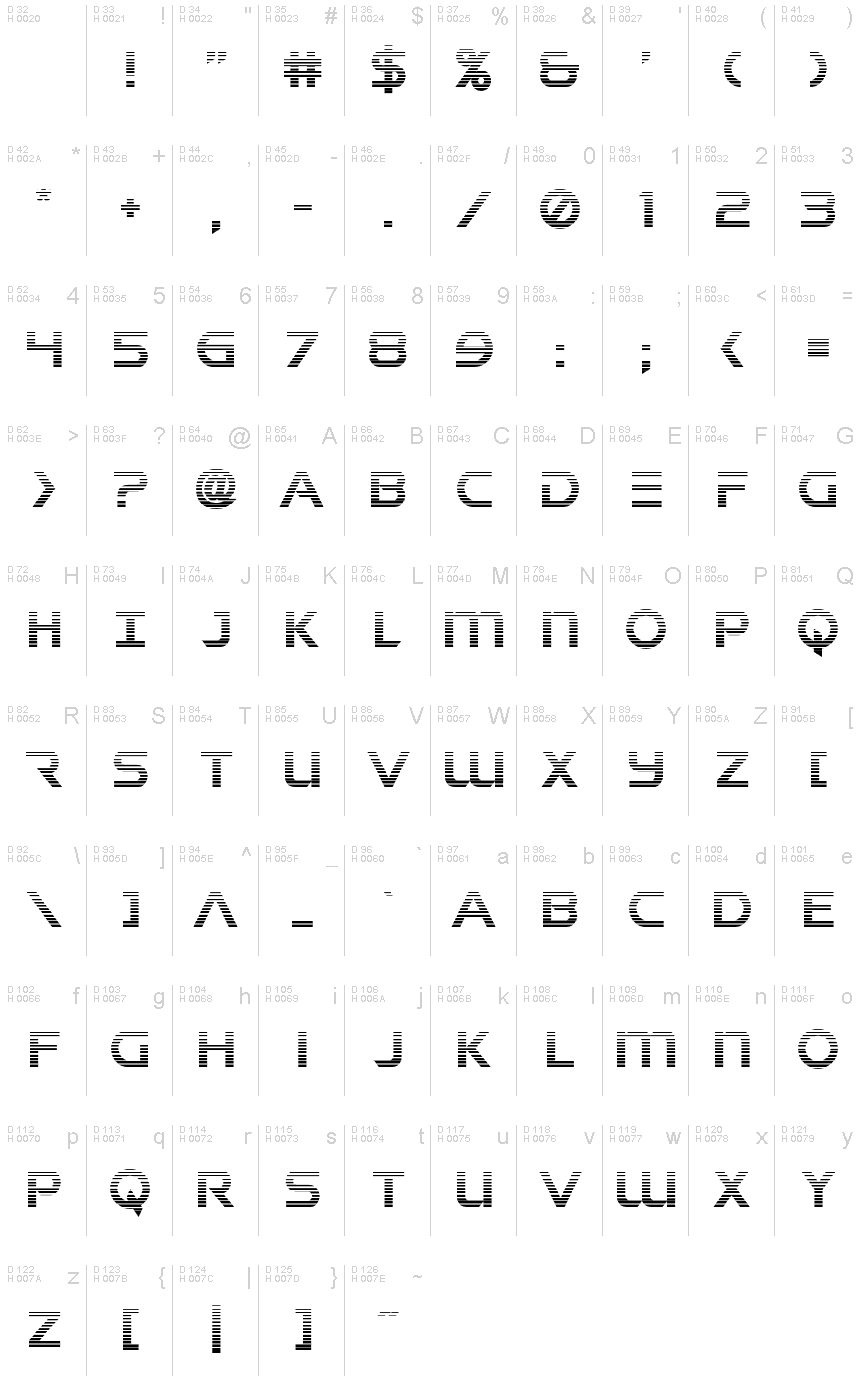
Singapore Sling Gradient
Singapore Sling Gradient is a captivating display font from the renowned designer, Iconian Fonts. With its sans serif techno style and semi-bold weight, this font exudes modernity and sophistication. The expanded width adds a touch of uniqueness, making it perfect for projects that require a bold statement. From sleek logos for tech startups to eye-catching headlines for fashion magazines, Singapore Sling Gradient adds a gradient twist that elevates any design. Whether you're creating futuristic posters or innovative website headers, this font is sure to make your project stand out from the crowd.